5 Amazing Types of Fonts You Should Know
Types of fonts you can learn for making your design project more beautiful
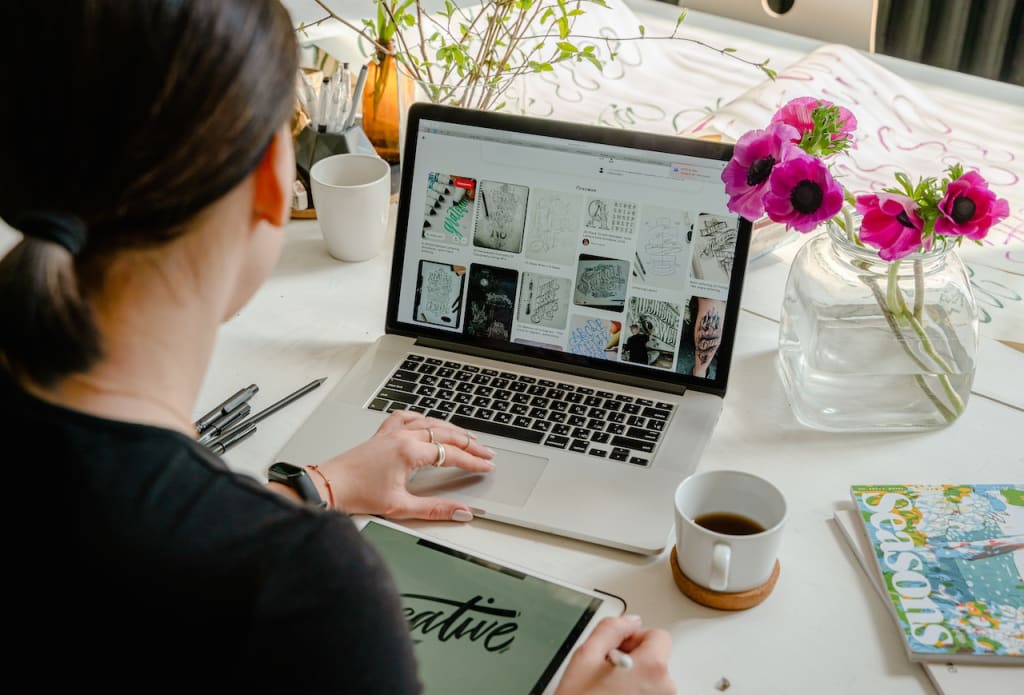
Selecting fonts for any project is critical, as you can easily access thousands of fonts with just one click. Before selecting any font, you need to understand the nature of the project and fonts. Then choose one that suits best for your project.
Going to design a logo, and are you not sure which font will adjust best? Pick the right color font that vibes match the brand to tell your brand's story to others. Let's take an example, designing a logo for a furniture brand. Fonts with brown or black color give the real feel of furniture to the viewer and elicit a specific response.
Each font has its own pros, cons, and psychological meaning that you should focus on while using them in your design. But, sometimes, designers get confused because of the availability of thousands of free fonts for designing.
We have broken down the fonts into 5 major categories or font families. To guide unique characteristics and to know the symbolic meaning to make a strong impact on each font in your design or to communicate the vibe well that you are going for.
Serif Font Style
This style is the world's oldest, most basic, and original font. They have been using it since the past and never go out of style. Each letter has tinny feet at the top and bottom sides. It is the frost font that comes into every designer's mind while designing logos, print copy, and websites. This style has a touch of ancient times. This is popular among different fonts because it considers the most trustworthy, conservative, and safe choice in the following categories;
- Titles and subheadings
- The main body, whether short or long text pages
The size of these fonts is usually big. So, they do not suitable where you need tiny-size fonts. Times new roman serif font style is the most classic for creating professional and well-designed visual content.
Sans Serif Style Font
This font family has this name because it has less line width variation. The word San means without, and Serif means lines. They use in various designs used in print and other digital devices projects. It is unique from serif font and becomes with the advancement of computers and other digital services. This typeface is the symbol of simplicity and efficiency and also gives a modern look to your design. Plus, they also give a clean look and are the most economical option.
Script Style Font
Script fonts consist of handwritten or calligraphy-style letters used in diplomas and invitations. The boldness and uniqueness of letterforms also work well in logos, headers, and quotes. The major styles of this family are inspired by 17th and 18th-century themes. The cursive handwritten letterform spread the grace and beauty in the design. They do not recommend long body texts and passages.
Display Fonts
This typeface is the most difficult to use because it is hard to identify as it does not follow any general rule. Graffiti, abstract and three-dimensional fonts are this typeface's three most unique styles.
Decorative Fonts
Picking any style in this typeface is difficult as they are the largest and most diverse type classification. You can use them where you feel you require strong typography, such as in headlines and other display projects.
Some font families give dramatic effects and distinctive appearances because of the unorthodox shape of letters.
All the fonts have specific features and fit in different designs well. Therefore, choose them wisely to impress your client and enhance your design's visual appeal. On the other side, wrong choices can damage your creativity and will have a negative effect on your clients or any other project.